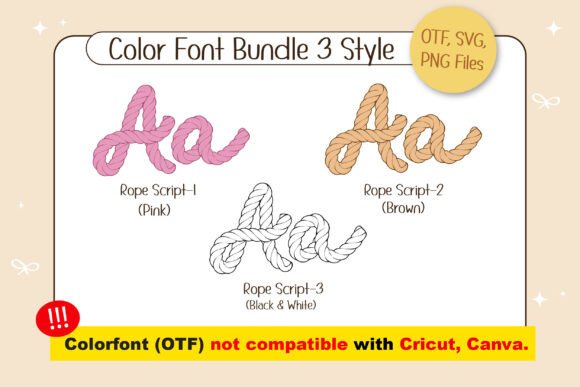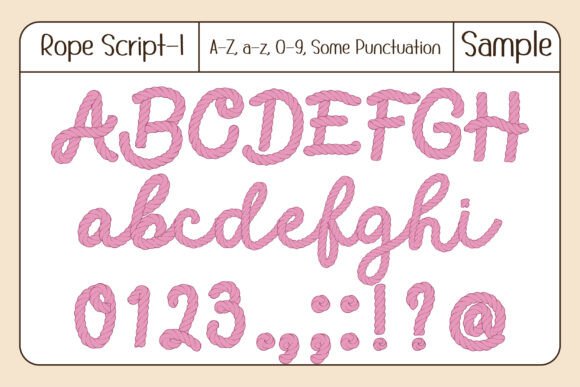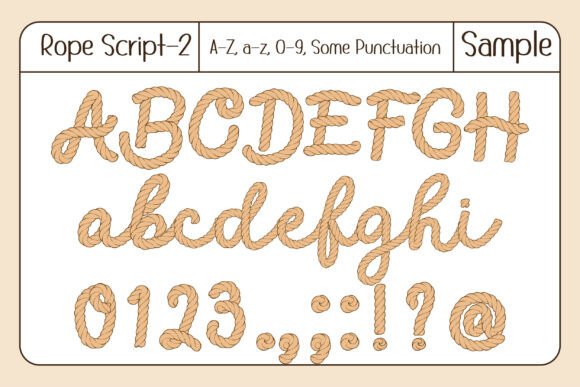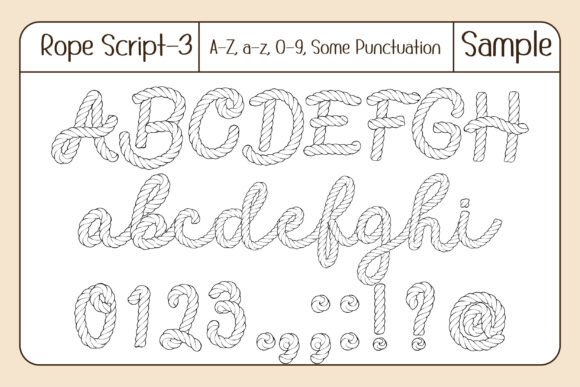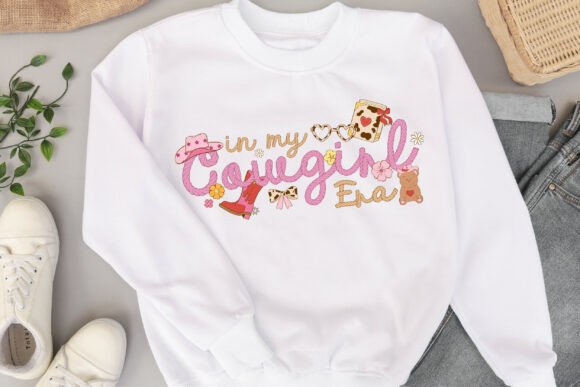
Introduction to Rope Script Font
Have you ever found yourself stuck in a creative rut, searching for that perfect design element to elevate your project? I know I have! As a designer, I’m always on the lookout for unique and high-quality design resources that can add a personal touch to my work. That’s exactly why I’m excited to share with you the Rope Script Font – a playful, color font that’s about to become your new go-to design best friend.
This charming script font combines the whimsy of twisted rope with a girly Western cowboy theme, making it the perfect addition to any project that needs a fun, country vibe. With its 3 color styles and 25 matching clipart elements, the Rope Script Font is a design resource that’s sure to bring a smile to your face and a touch of personality to your work.
Key Features of Rope Script Font
- High-quality, handwritten font perfect for creative projects requiring a unique touch.
- Unique, cursive script style ideal for titles, headings, and other design elements requiring a creative touch.
Honest Review: Rope Script Font
As a designer, I’m always on the lookout for high-quality design resources to elevate my creative projects. The Rope Script Font is one such gem that caught my attention.
- Unique, cursive style that adds a touch of elegance to any design.
- High-quality font that’s perfect for creating eye-catching headings or titles.
- May not be suitable for large blocks of text due to its cursive nature.
- No bold or italic variants available, which may limit its use in certain contexts.
Overall, I’m impressed with the Rope Script Font’s unique style and high quality. While it may have some limitations, it’s a great addition to any designer’s toolkit, especially for creative projects that require a touch of elegance.
Tips for Getting the Most Out of Rope Script Font
Use Rope Script Font with a transparent background to create a seamless design. This font is ideal for high-quality designs that require a touch of sophistication.
Rope Script Font is commonly used for wedding invitations, branding, and marketing materials. Its elegant and sophisticated design makes it perfect for creative projects that require a touch of class.
Alternatives to Rope Script Font
Great Vibes is a high-quality, cursive script font perfect for adding a creative touch to your project. It works well for titles, headings, and quotes. This font is ideal for designers looking for a modern, elegant script font with a transparent background.
When to use: Great Vibes is suitable for a wide range of design projects, including wedding invitations, magazine covers, and social media graphics. It’s a great alternative to Rope Script Font for designers seeking a more contemporary look.
Comparison: Great Vibes has a more modern and minimalist design compared to Rope Script Font, which has a more vintage feel. Great Vibes is also more versatile and can be used in a variety of contexts, from formal to casual.
Carolyna Pro is a high-quality, elegant script font ideal for designers who want to add a touch of sophistication to their project. It’s perfect for titles, headings, and body text. This font is suitable for designers who need a design resource with a transparent background.
When to use: Carolyna Pro is suitable for a wide range of design projects, including luxury branding, fashion magazines, and high-end marketing materials. It’s a great alternative to Rope Script Font for designers seeking a more refined and elegant look.